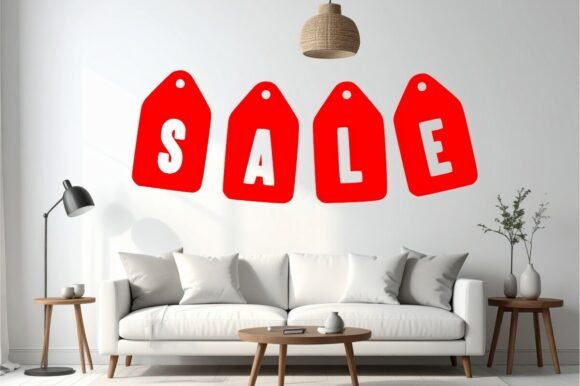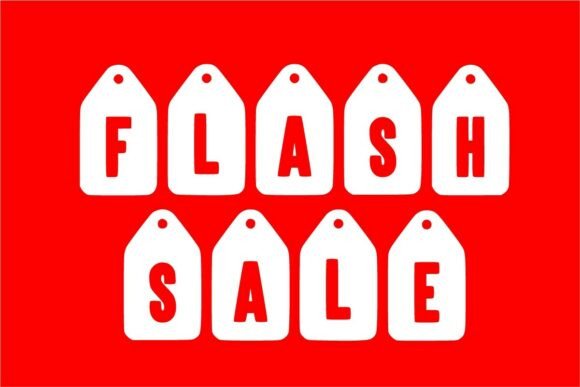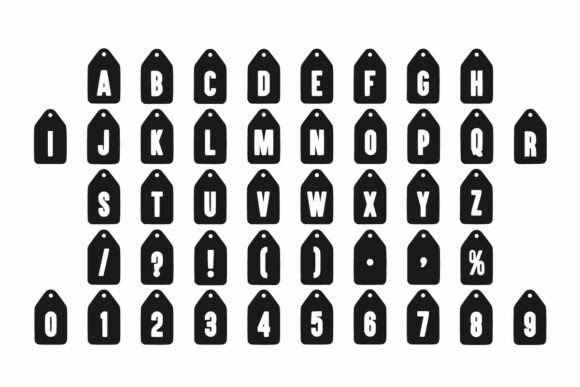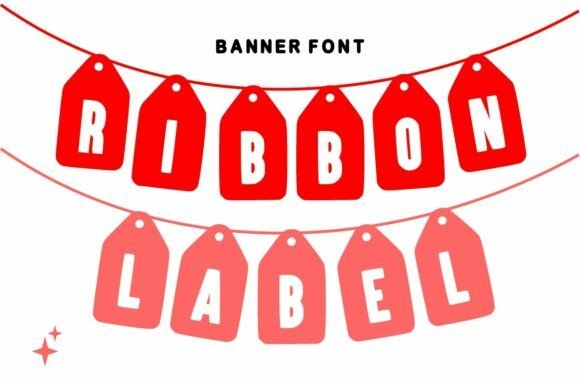
Introduction to Ribbon Label Font
Ribbon Label is a playful banner-style display font inspired by hanging tags, ribbon banners, and festive decorations.
Each character looks like a cute label hanging on a string, making this font perfect for party designs, birthday invitations, event banners, packaging, labels, kids’ projects, and cheerful branding With its bold shapes and friendly style, Ribbon Label adds a fun and decorative touch to any creative project.